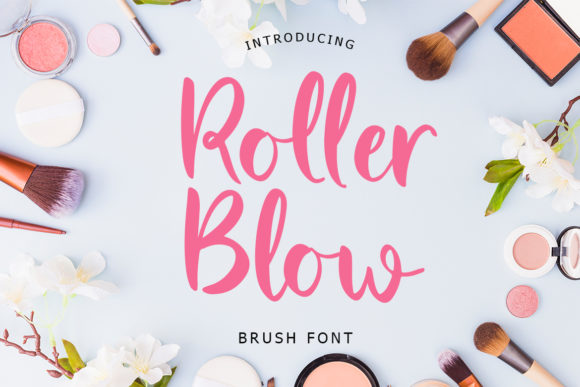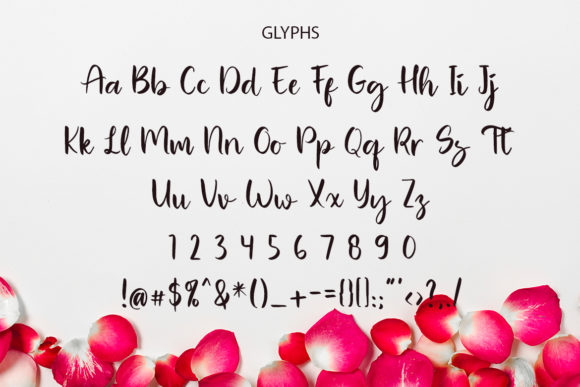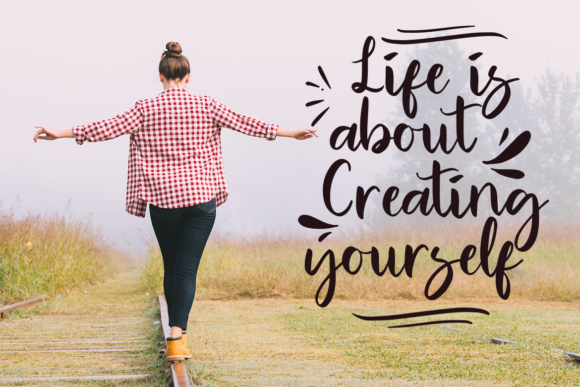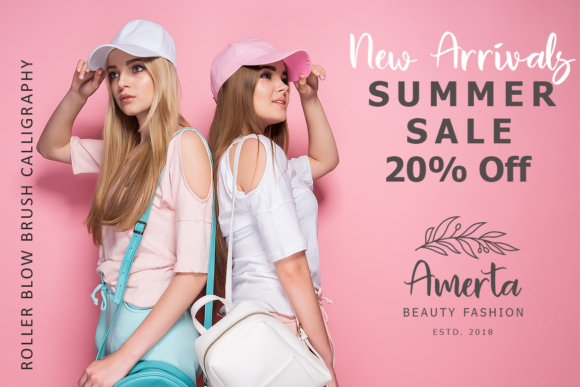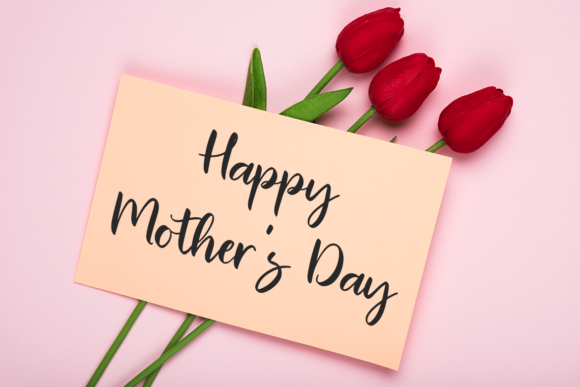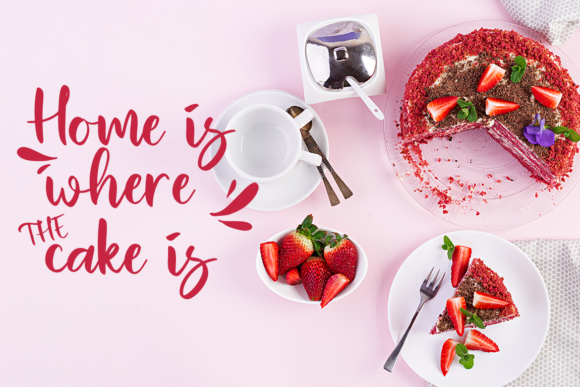
Roller Blow Font
About Roller Blow Font
Roller Blow is an elegant and lovely handwritten font, created by using a brush pen. Clean and a little bit quirky, this font is the perfect fit for all of your logos, branding, social media, and crafty DIY projects.